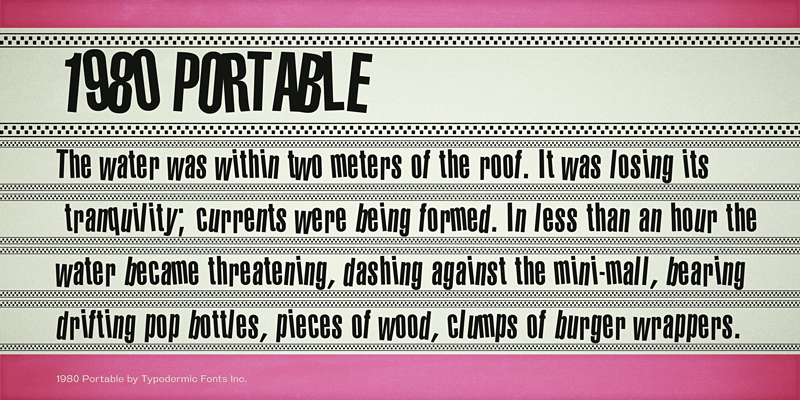
Preview and download 1980 Portable Font. Created by Typodermic Fonts in Fancy Decorative styles with 100% Free license.
I created this new-wave, checkered ska font in 1998. Now it’s been updated with more language support, more punctuation and symbols, better accents and tighter vertical metrics. The space character has been replaced with a checkered stripe so you can easily create an unbroken bar of text. This font includes a license that allows free commercial use: sometimes referred to as a desktop license. This allows you to install the font on a computer and use it to create posters, web graphics, game graphics, t-shirts, videos, signs, logos and more. Read the license agreement for details. If you'd like to embed this font in an app, ebook, on the web or anything that's not covered by the desktop license agreement, visit the link below. You'll find distributors who offer different types of licenses or you can contact me for help. http://typodermicfonts.com/1980-portable-please-dont-freak/ |